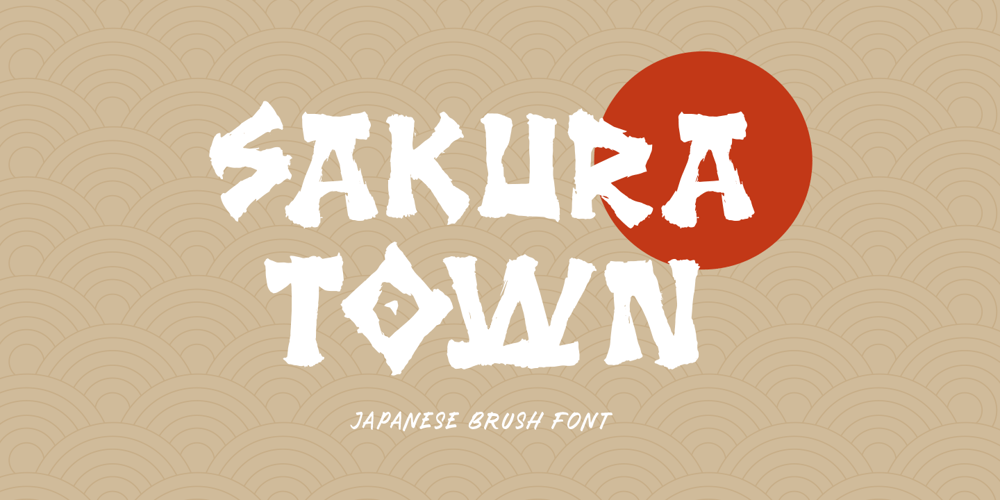
Sakura Town Font Family was designed by Hendry Juanda and published by Letterhend. Sakura Town contains 1 styles and family package options. Sakura Town is a display typeface inspired by japanese type brush. This type of font perfectly made to be applied especially in logo, and the other various formal forms such as invitations, labels, logos, magazines, books, greeting / wedding cards, packaging, fashion, make up, stationery, novels, labels or any type of advertising purpose.Features : uppercase & lowercase numbers and punctuation multilingual & swash PUA encoded We highly recommend using a program that supports OpenType features and Glyphs panels like many of Adobe apps and Corel Draw, so you can see and access all Glyph variations. How to access opentype feature : letterhend.com/tutorials/using-opentype-feature-in-any-software/